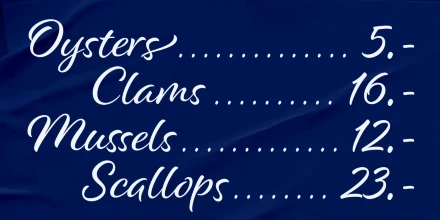
Modish Font
Modish
Modish is a perfectly balanced synthesis of the casually hand-drawn look and the pixel-perfect slickness of digital design. Inky, but neat, flowing, but controlled, the result is a font that’s ideal for on-trend designs for food, clothing, cosmetics, retail packaging, or menus. Modish features 270 swashes, 78 stylistic alternates that include alternates to create a fully connected OR unconnected look and contextual variants in lowercase letters and 43 Ligatures.